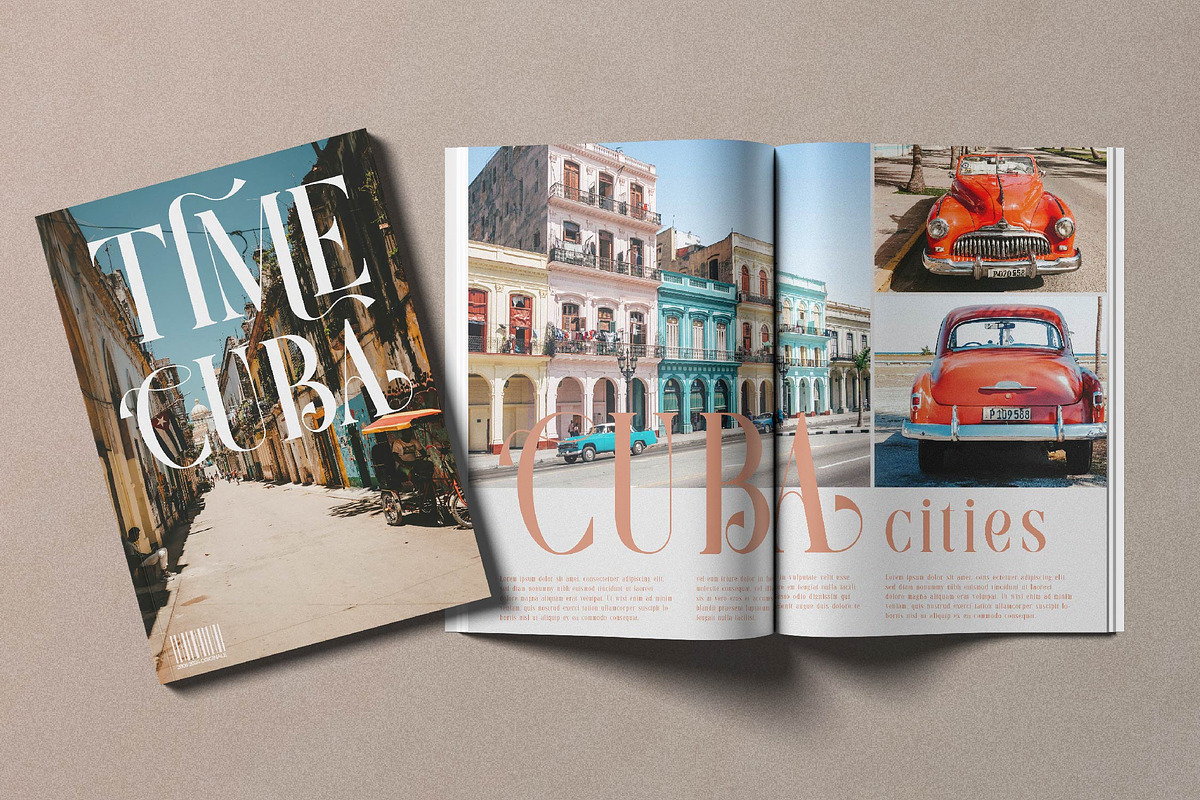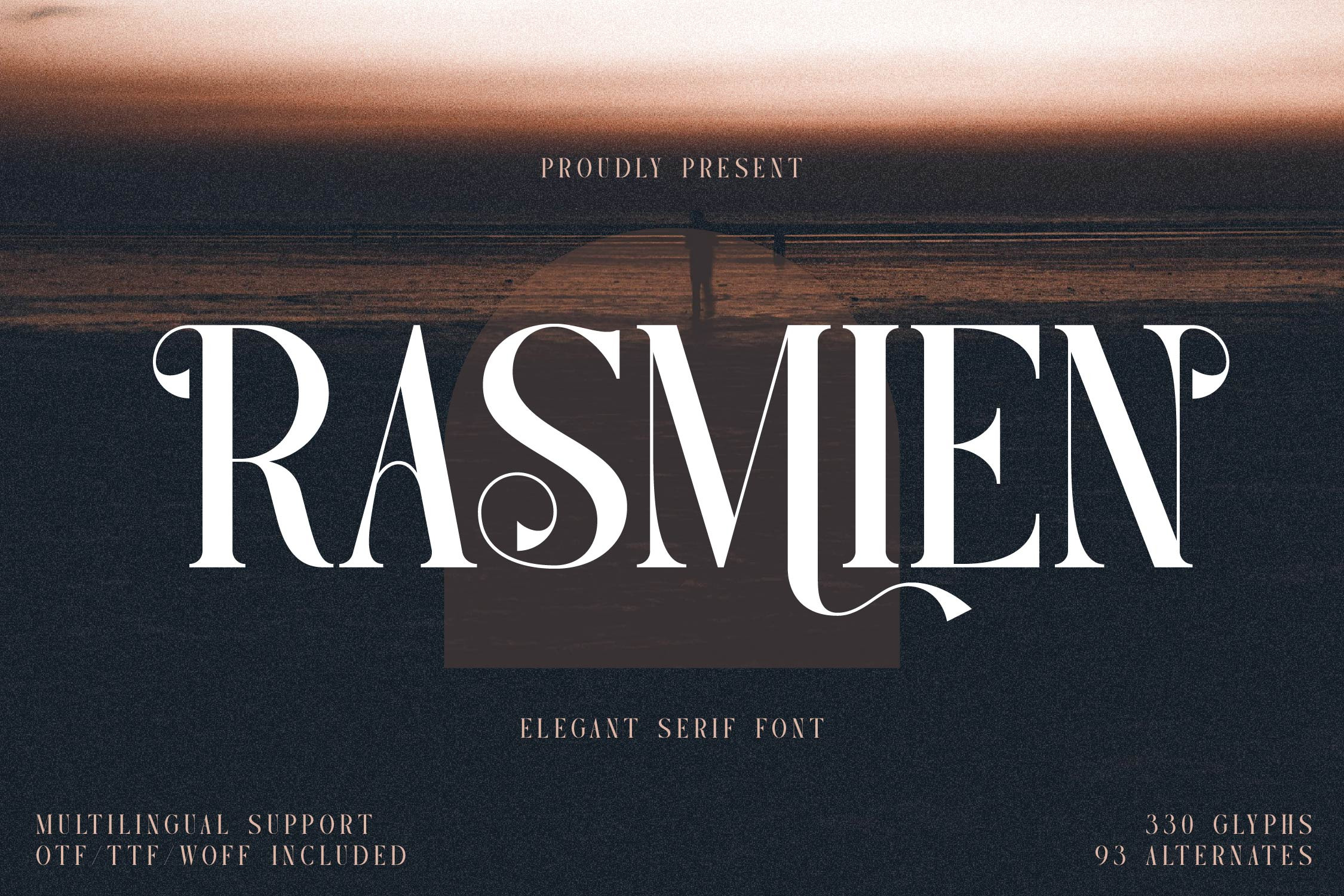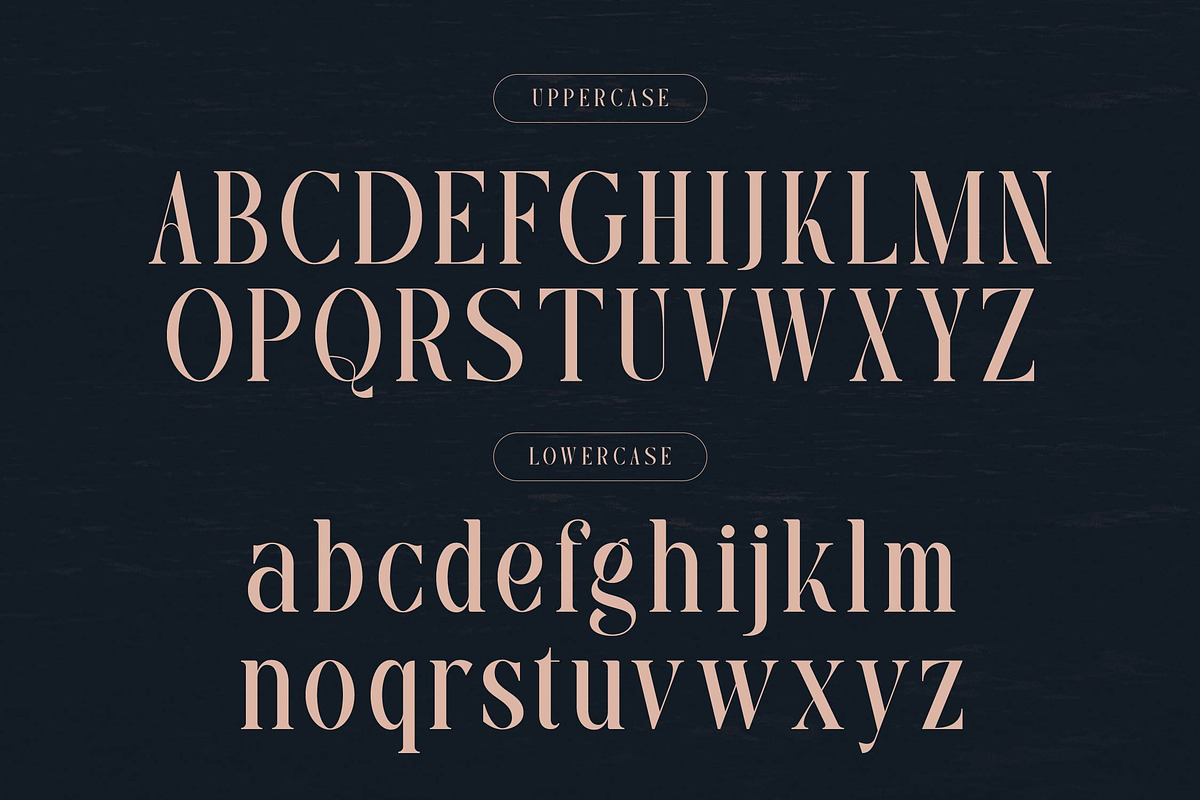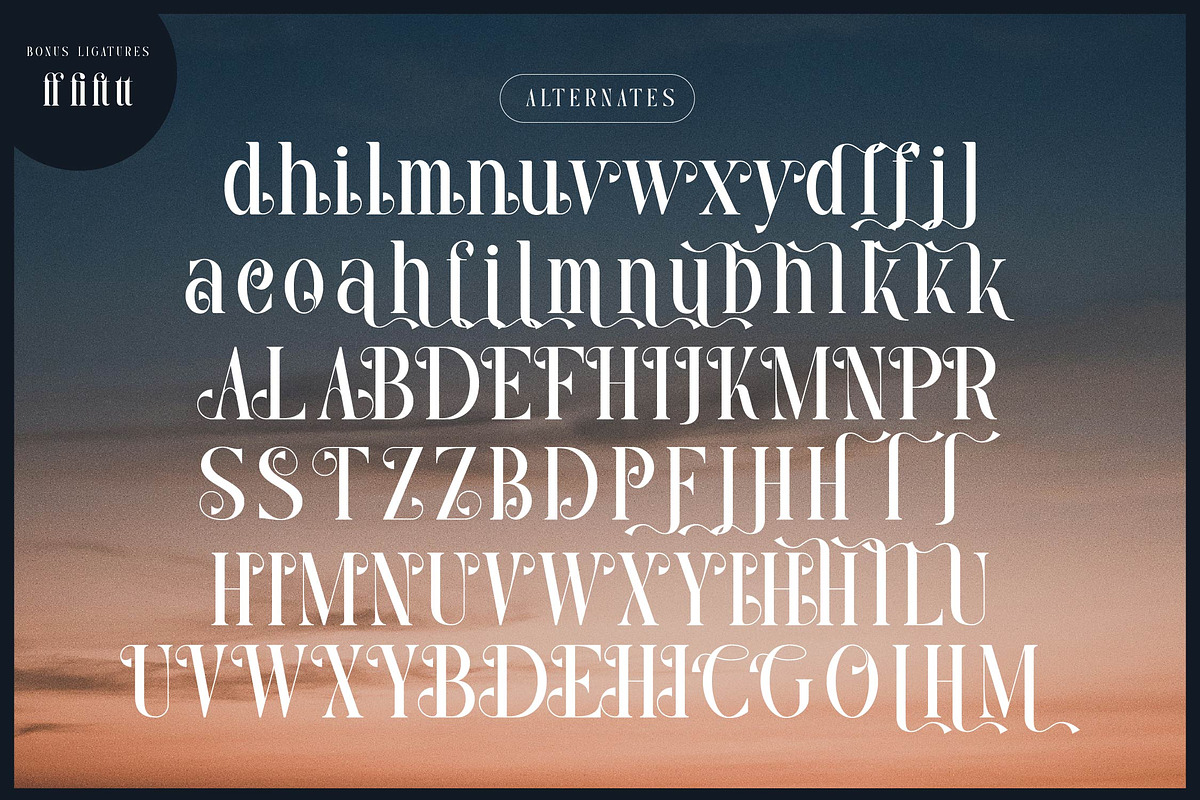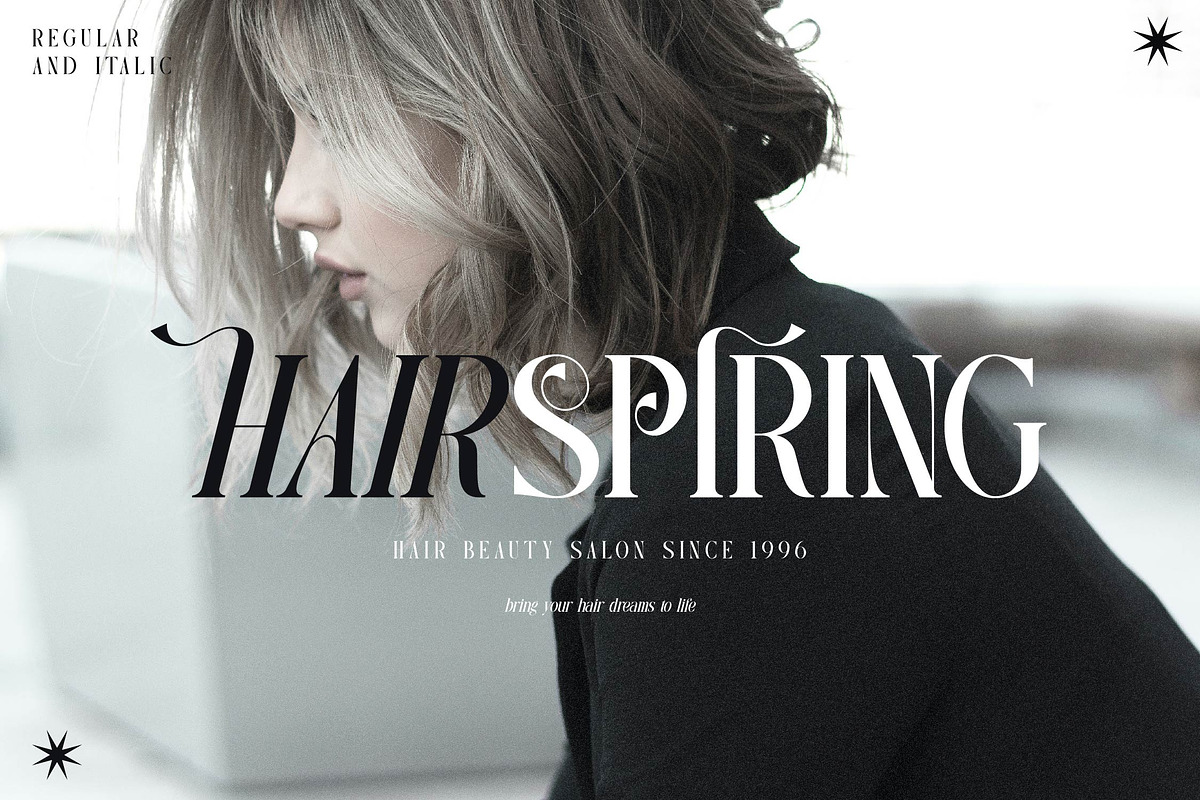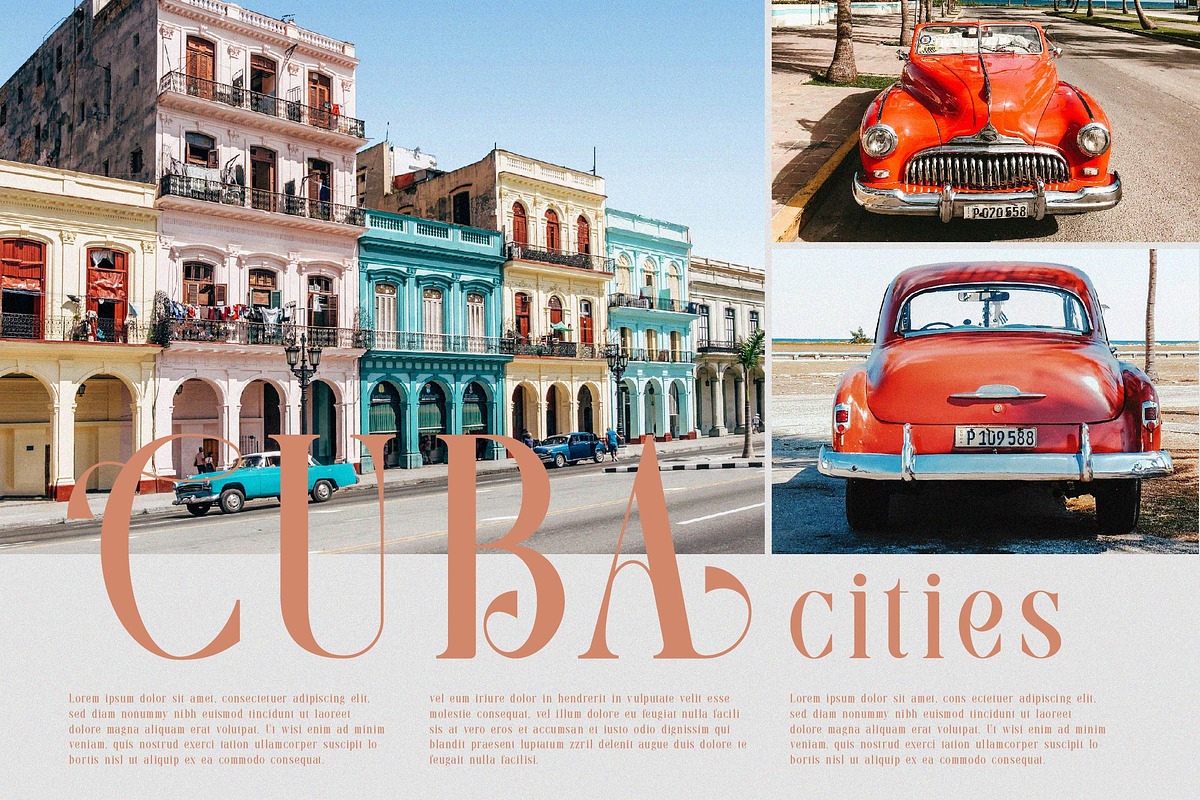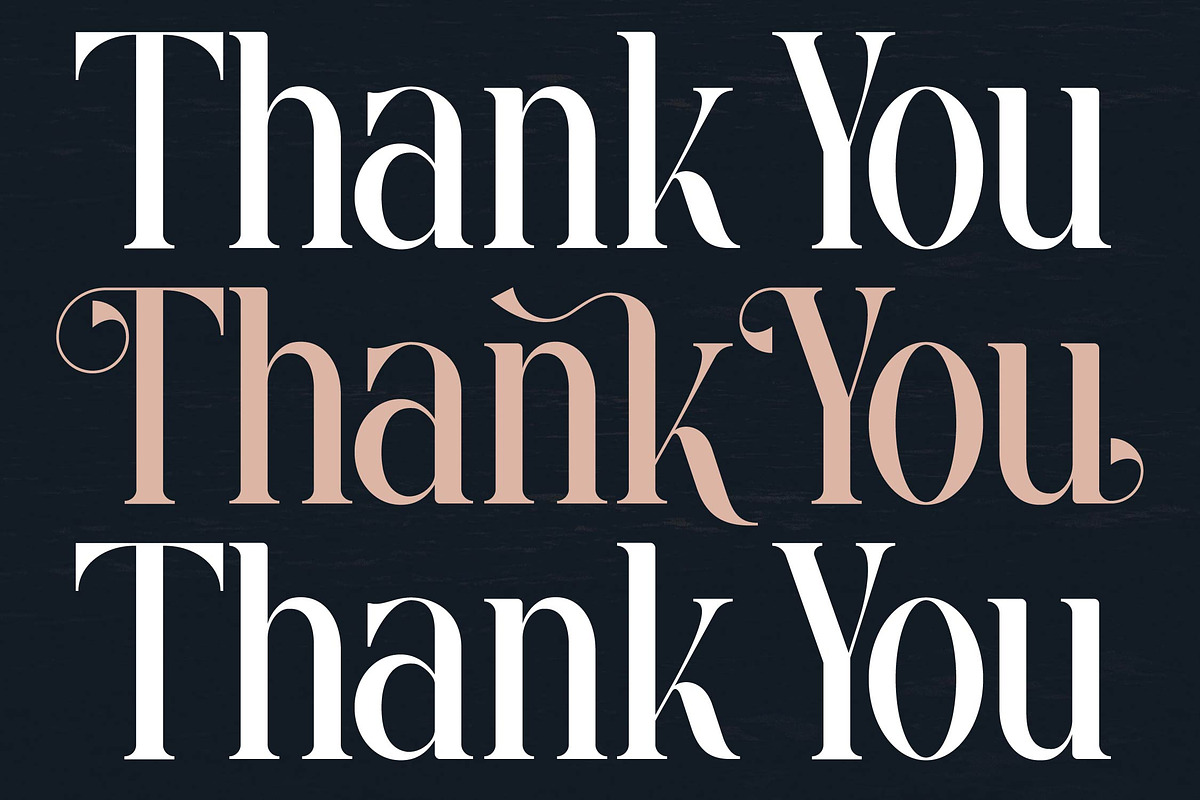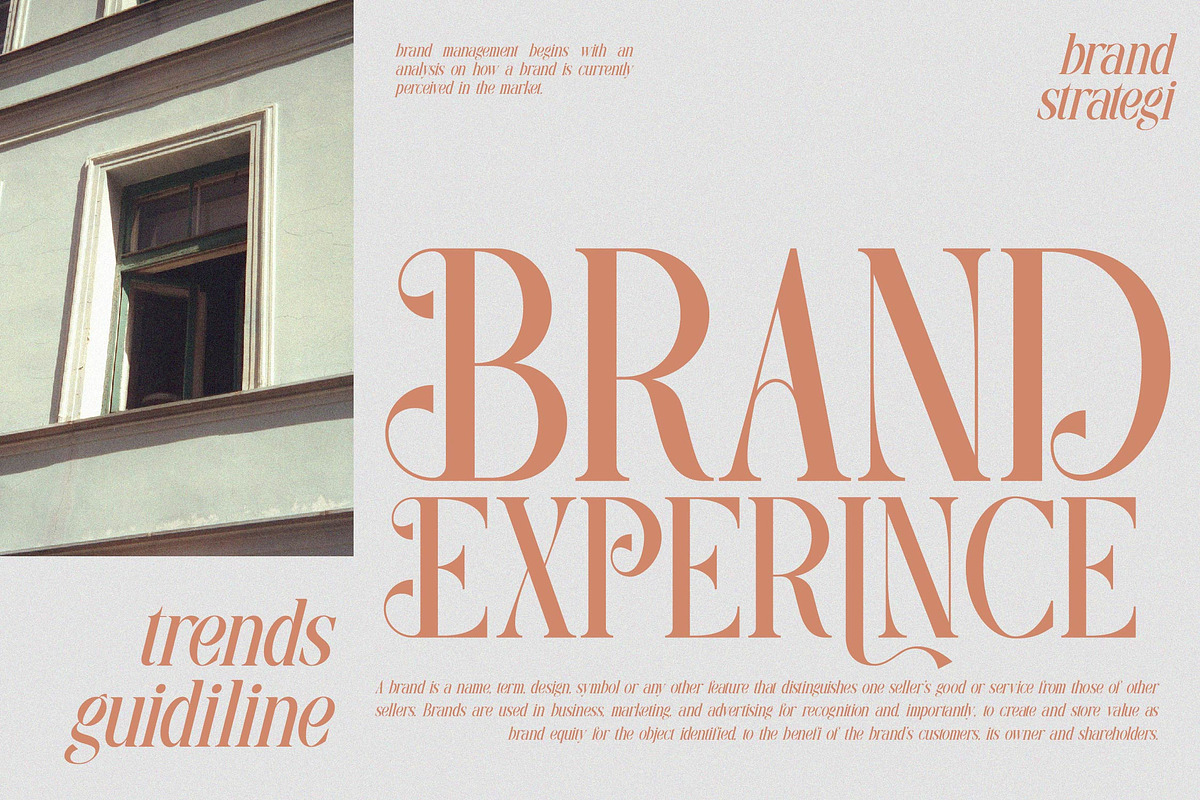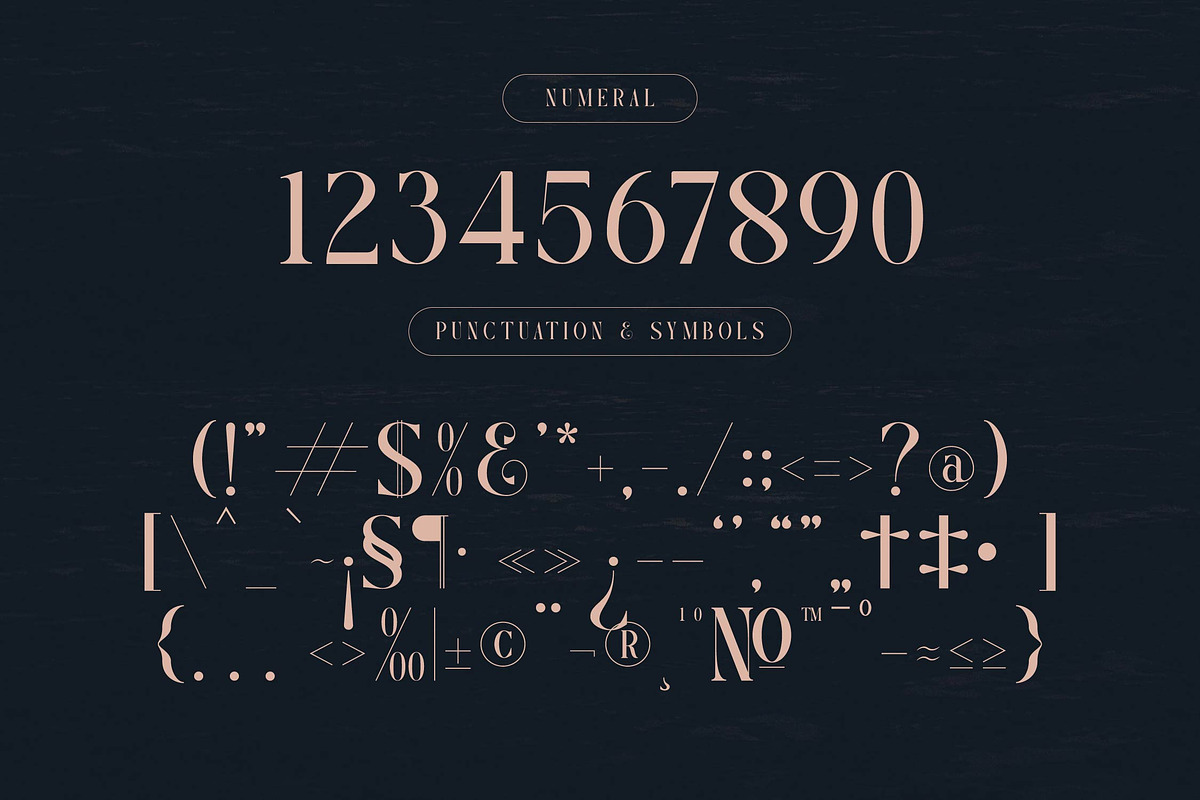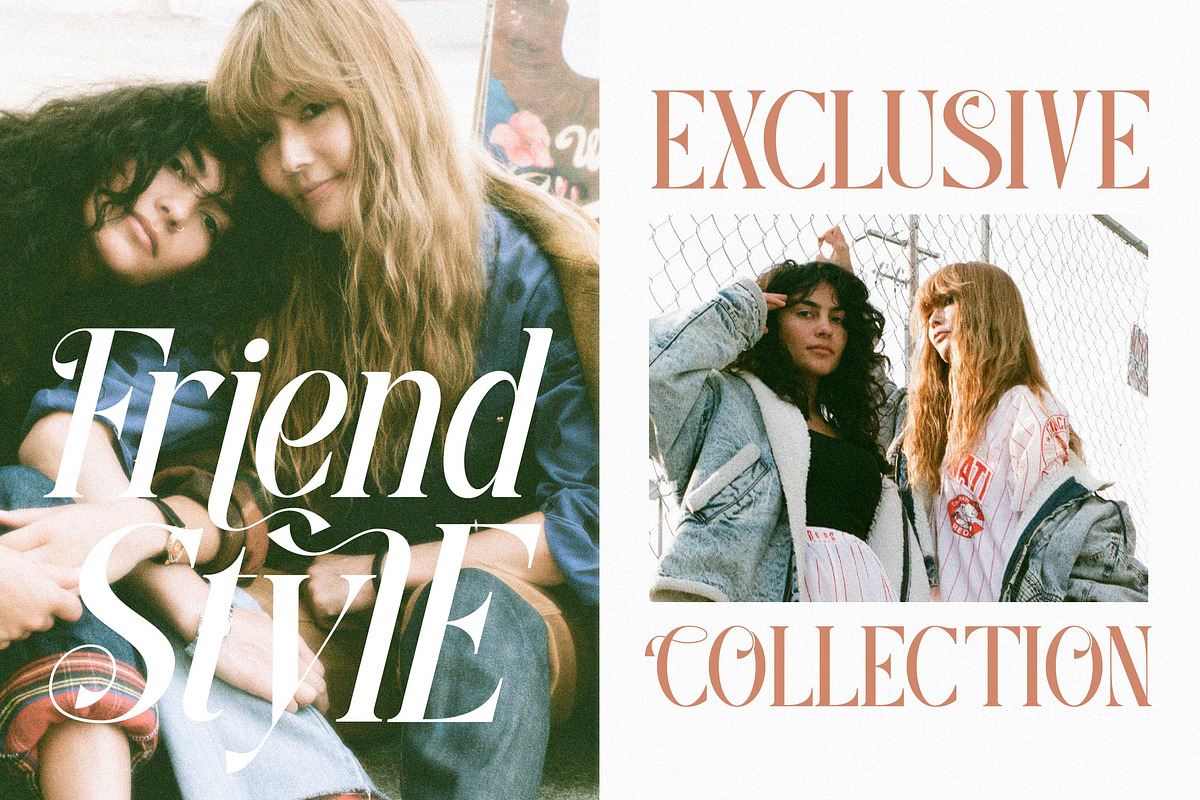
Rasmien | Elegant Serif Font
Rasmien | Elegant Serif Font, from Denustudios, suitable for any projects such as: logos, branding projects, homeware designs, product packaging, mugs, quotes, posters, shopping bags, t-shirts, book covers, name card, invitation cards, greeting cards, label, photography, watermark, special events, and all your other lovely projects that need a Elegant Serif Font taste.